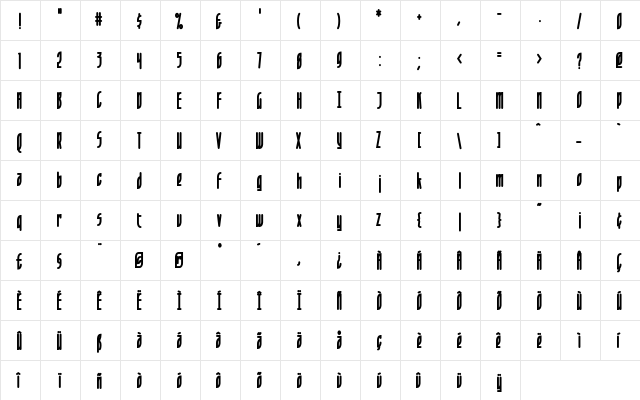
LeafletBold Regular
Design Context for LeafletBold Typeface
LeafletBold takes a measured approach to typography — its balanced proportions and neutral character make it a reliable workhorse for both digital and print work. Its bold stroke weight gives it real presence on the page.